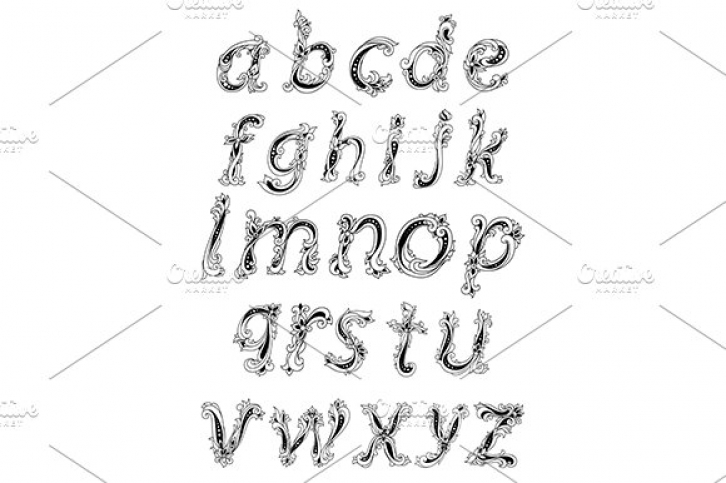
Floral alphabet in outline sketch style with lowercase letters decorated abstract flowers and leaves curlicue for vintage design. EPS and JPEG files are in archive